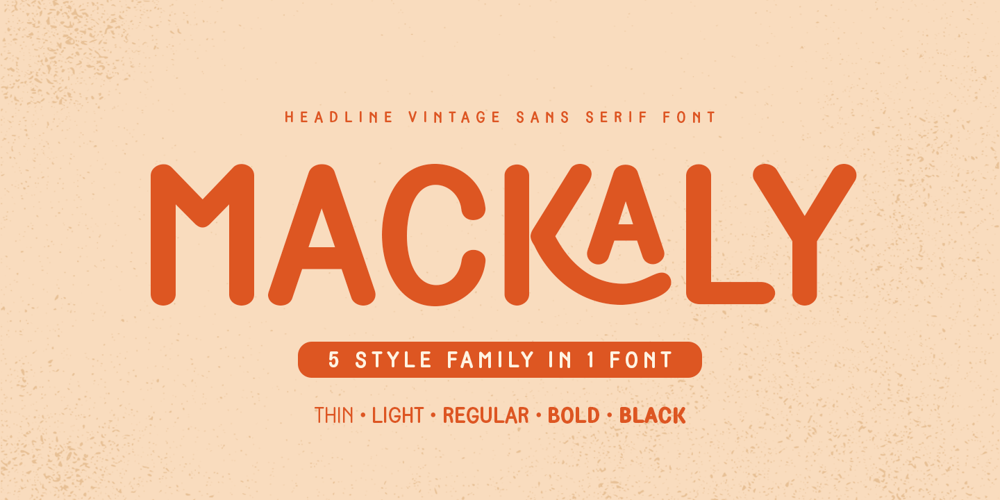
Mackaly Font Family was designed by Zamroni Hamzah and published by Sensatype Studio. Mackaly contains 5 styles and family package options. Mackaly is A Headline Vintage font that special created to show a Retro and Display styleA Serif Vintage font that we created special for classy branding needs, with extra ligature in unique and vintage shape add value of your brand. It’s so nice to leverage designer or product owner that need solutions to make their design look more vintage and unique.Mackaly Headline Vintage font ready with: Lowercase and Uppercase characters Numbers and Punctuations 5 weights of alternative Ready of Ligature Preview as a inspirations that you can do with Mackaly font Available for PC and Mac Wish you enjoy our font.